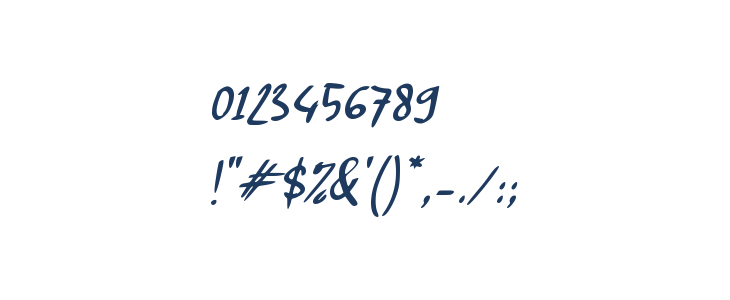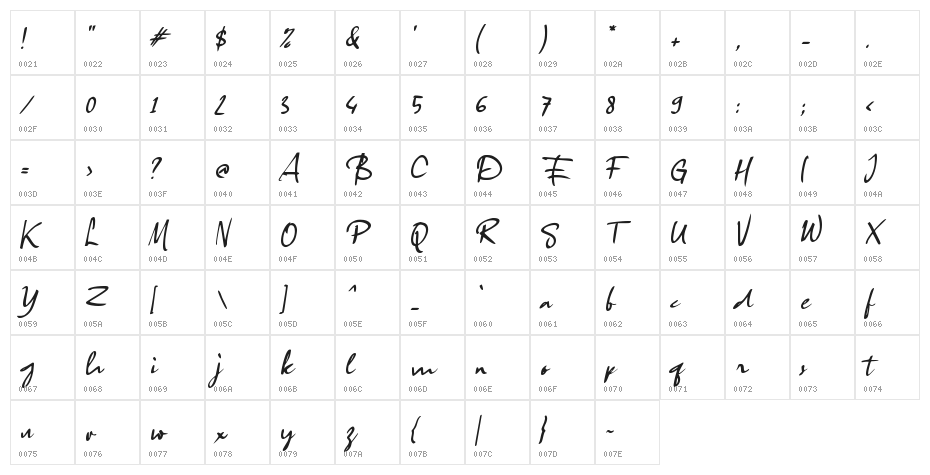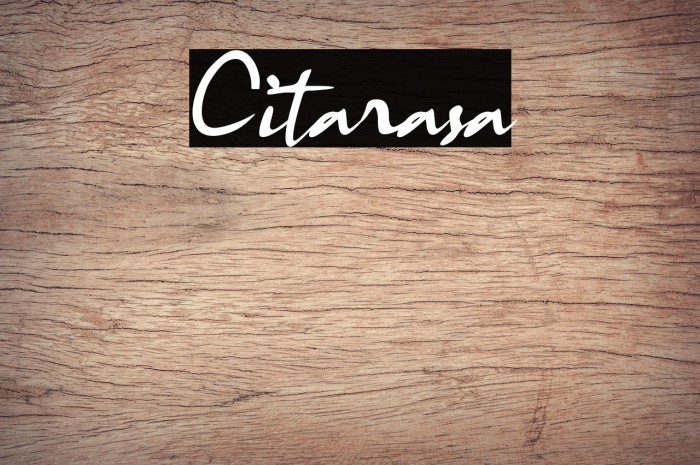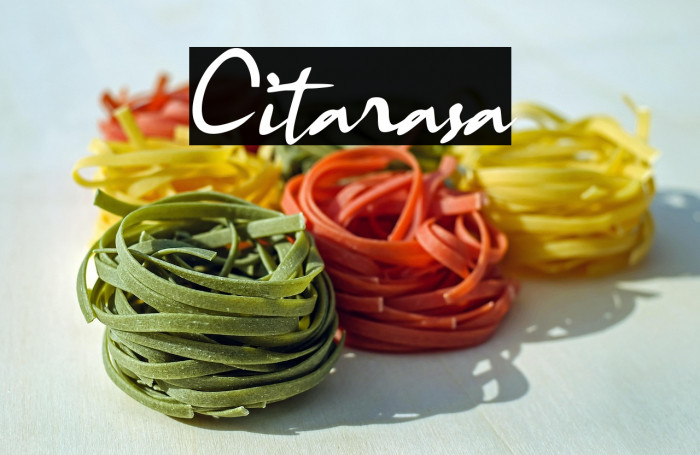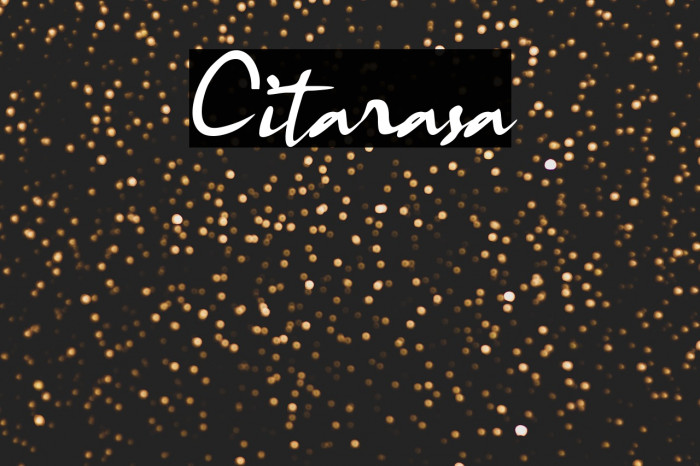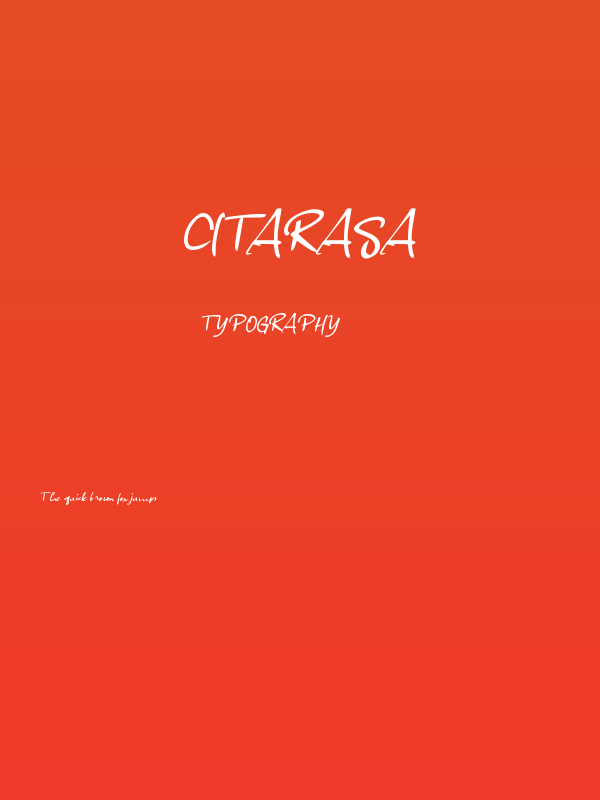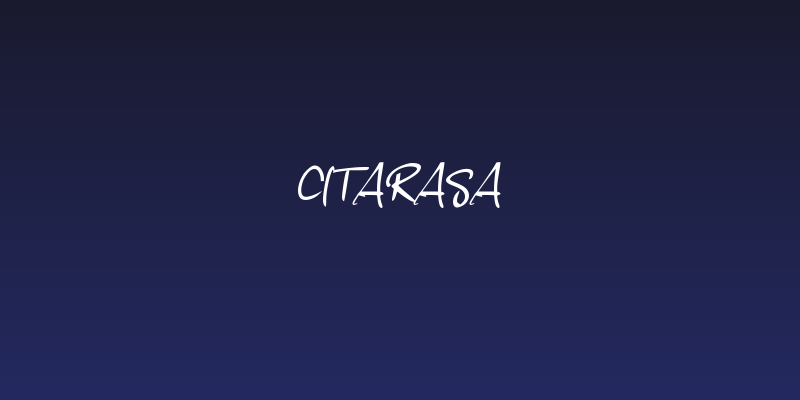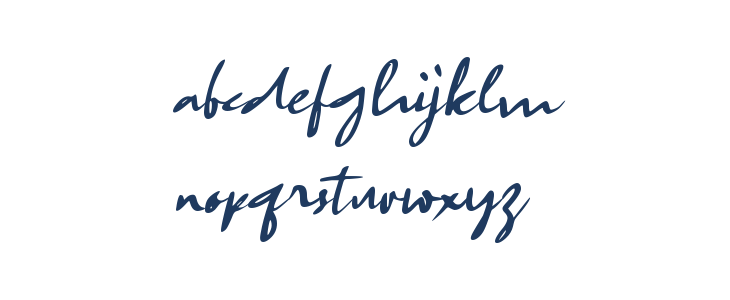
Citarasa Font
Citarasa Description
This font exudes a dynamic and expressive style, characterized by its fluid, cursive script. The letters are crafted with a natural, handwritten feel, featuring elegant loops and swashes that add a touch of sophistication. The uppercase letters are bold and prominent, while the lowercase letters maintain a consistent flow, enhancing readability. The numerals and special characters are designed to complement the overall aesthetic, making them suitable for a variety of creative applications. This font is perfect for projects that require a personal touch, such as invitations, greeting cards, and branding materials.
| Proposed Projects | Ideal for invitations, greeting cards, branding, and creative projects requiring a personal touch. |